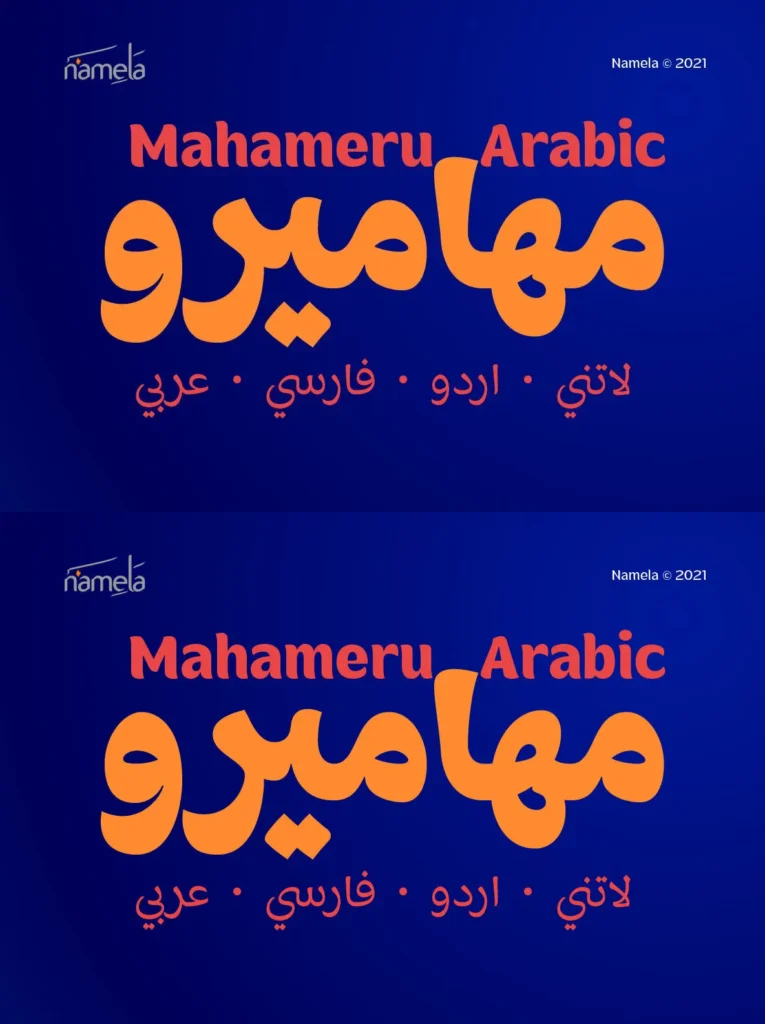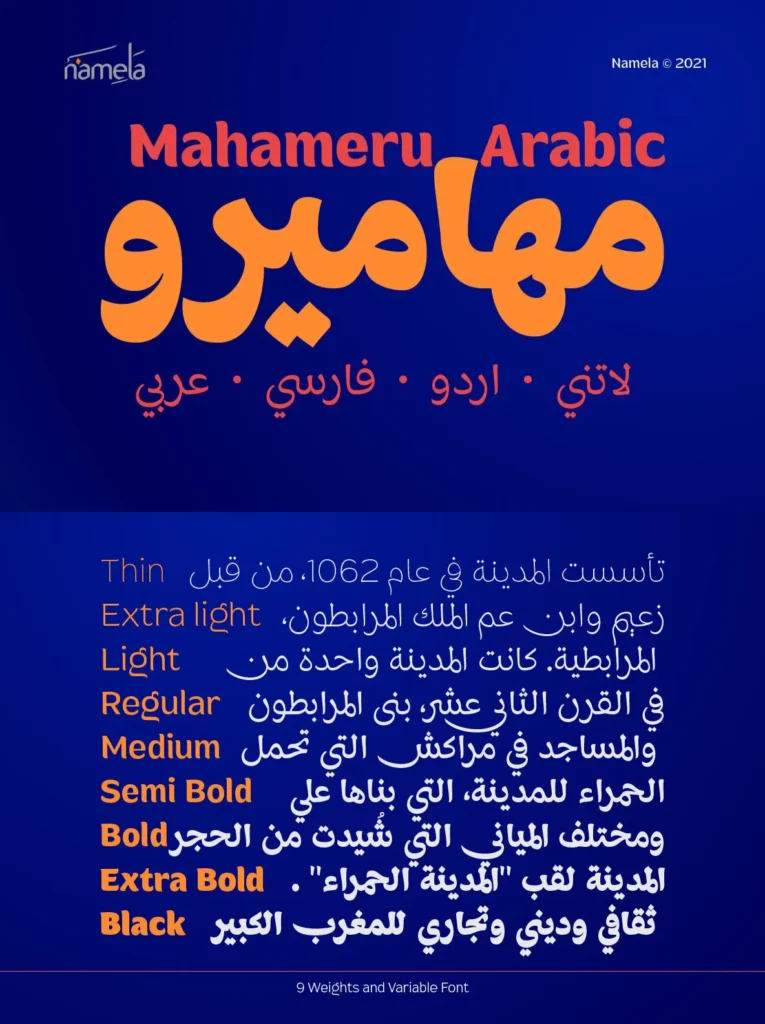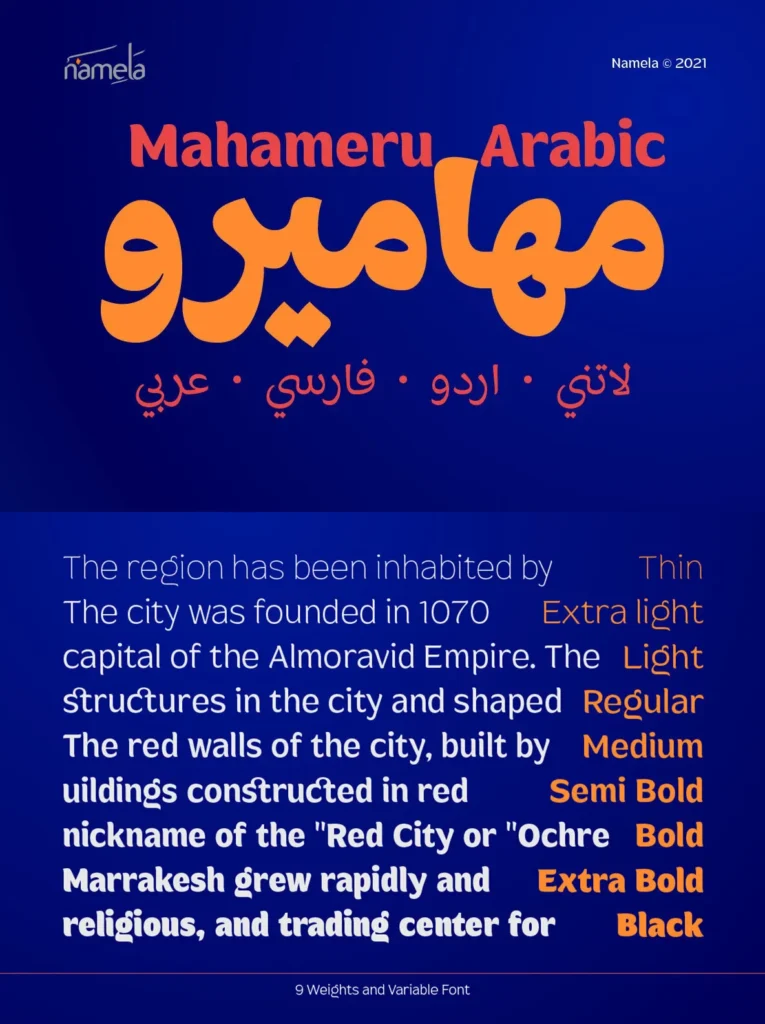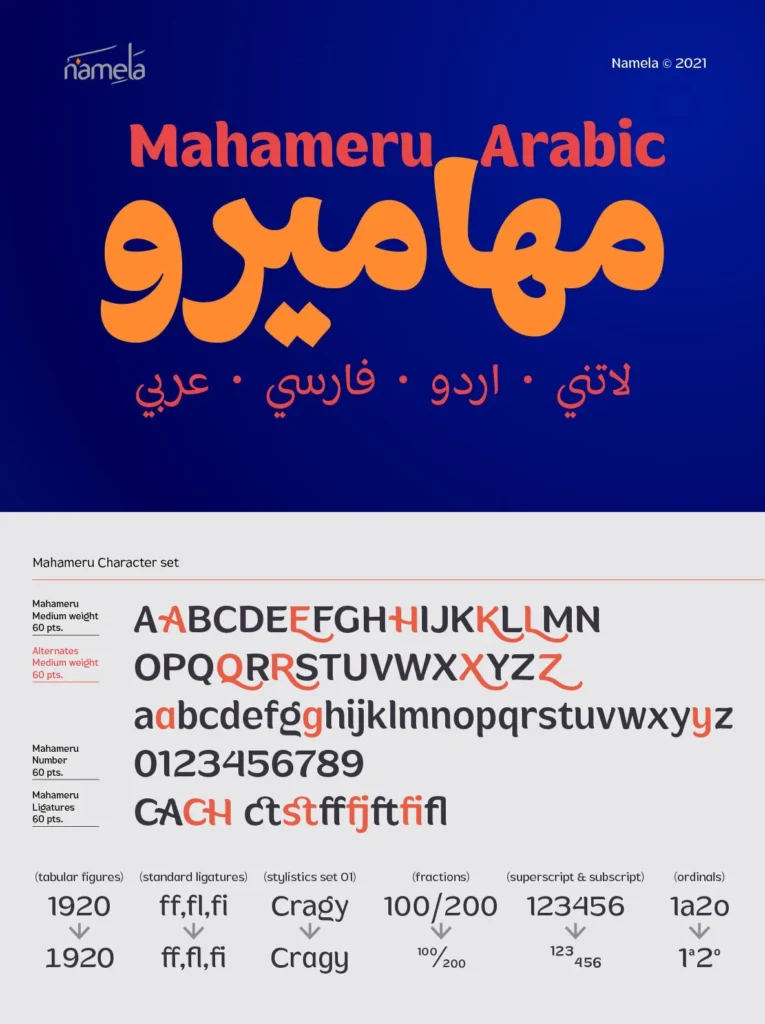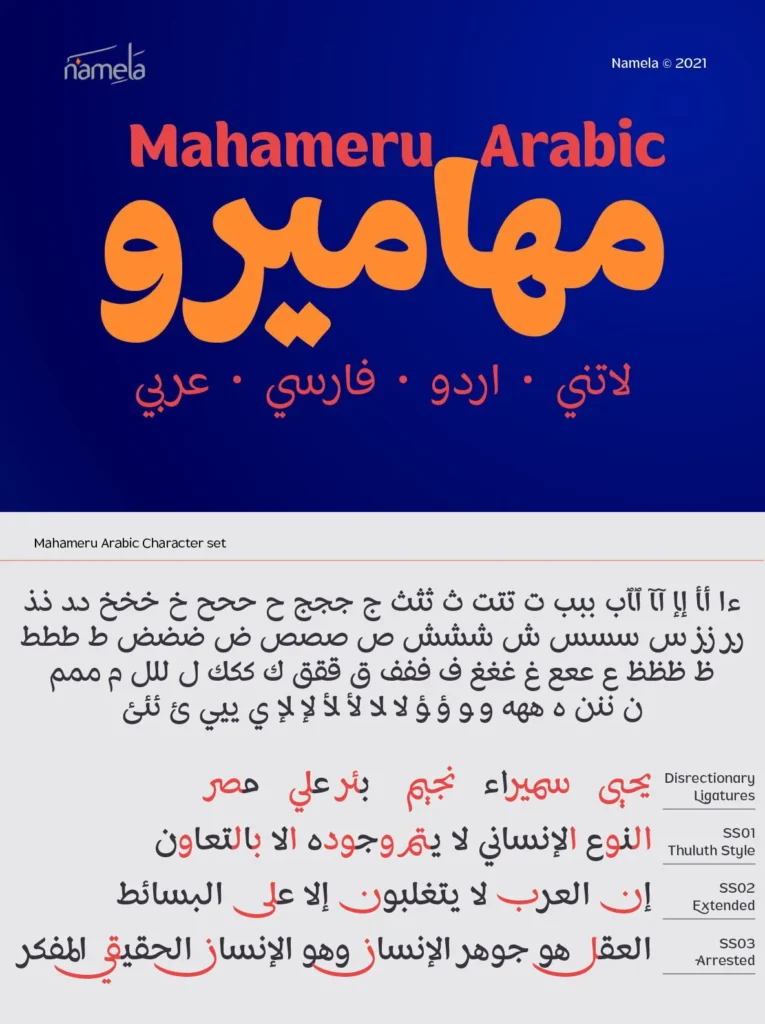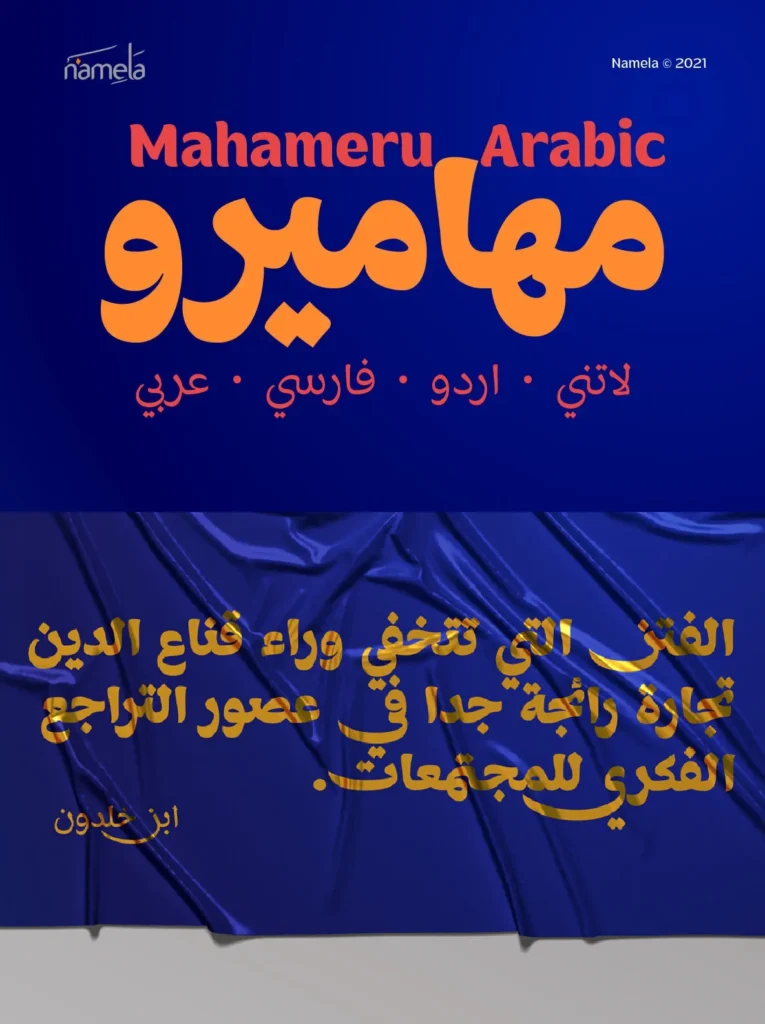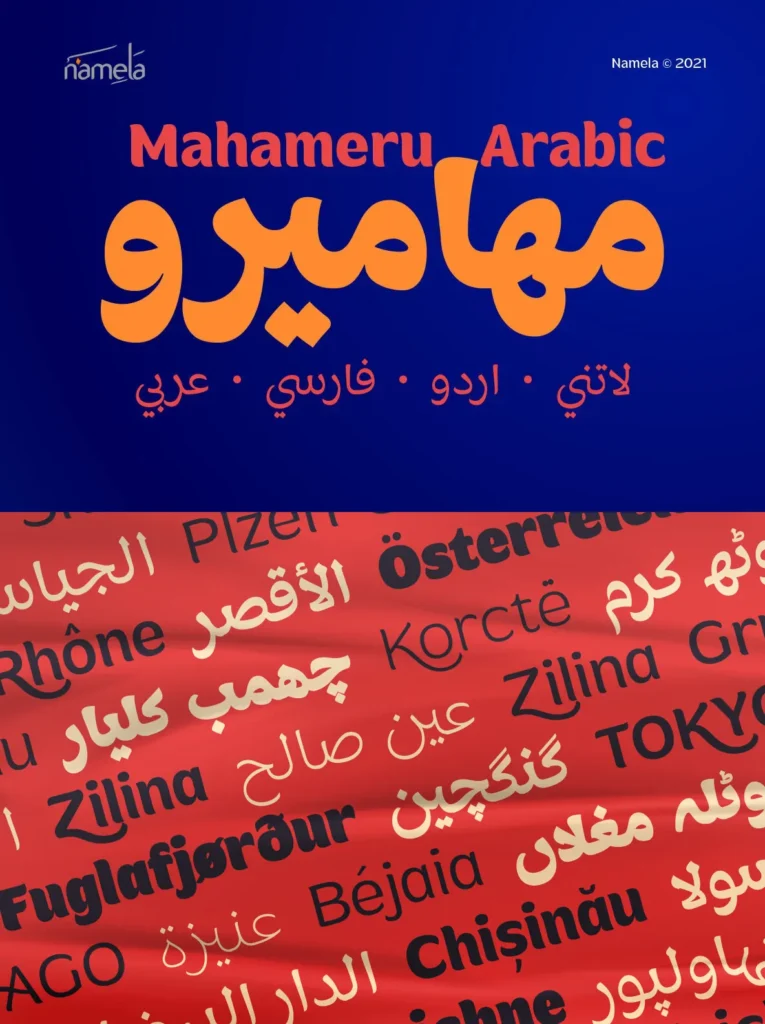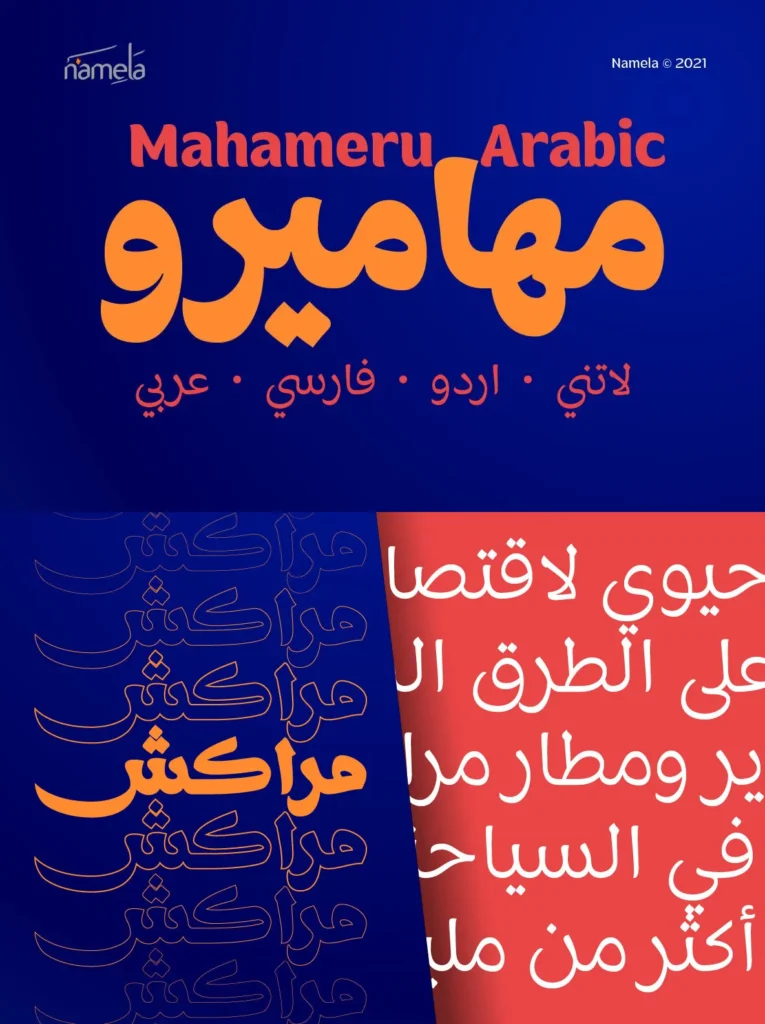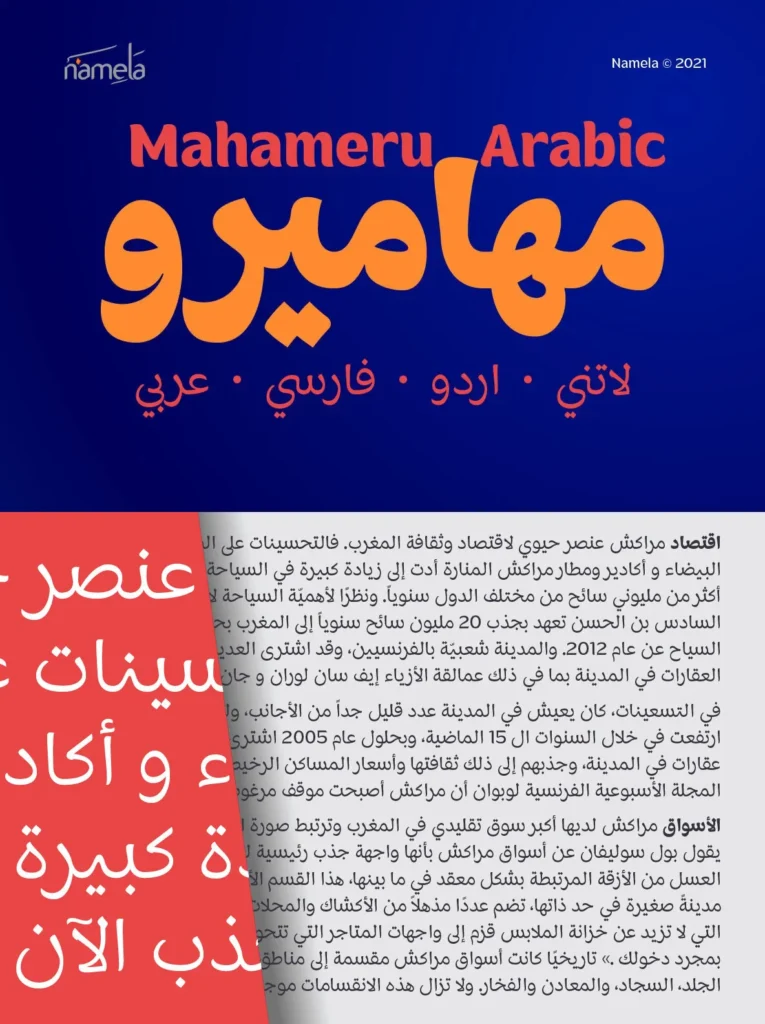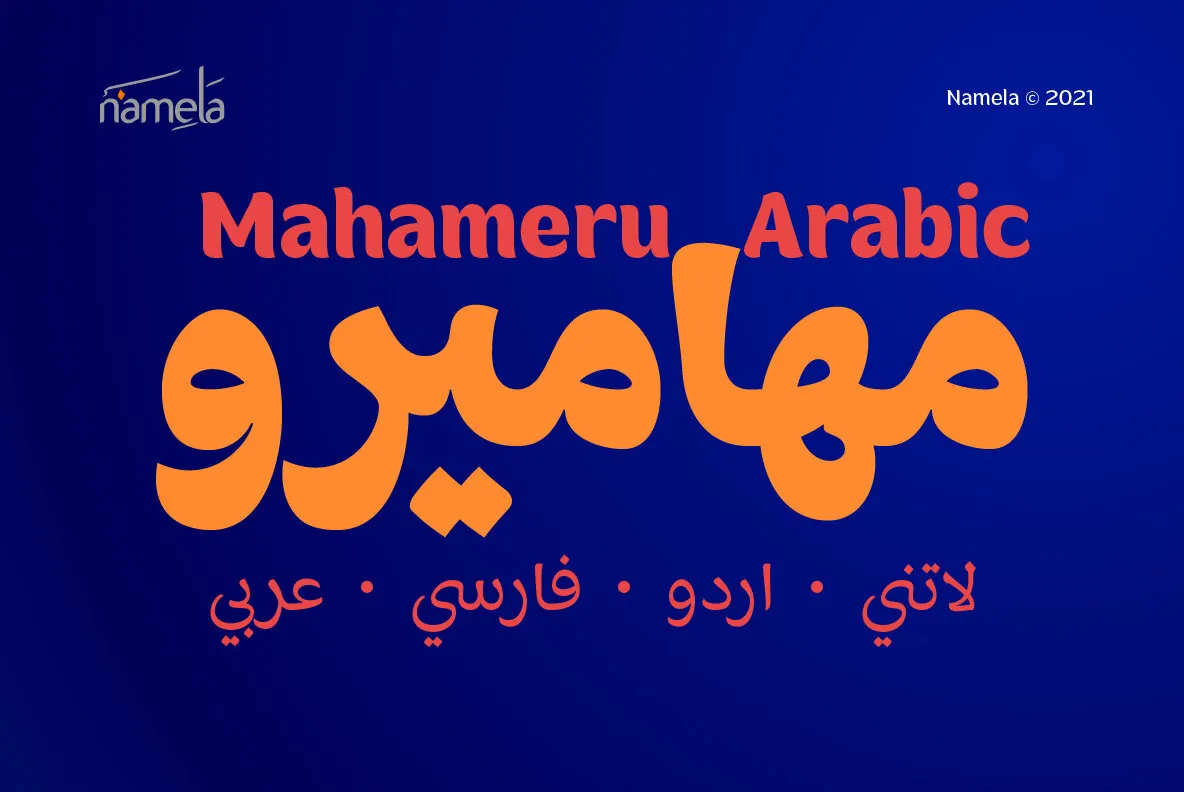
Mahameru is the name of the peak of Mount Semeru, mean “The Great Mountain” in Sanskrit.
This font gives a firm and soft character, with the terminal point on straight and curved strokes. In Arabic version we adding Arabic Characters for Arabic, Urdu, and Farsi.
The family has 9 weights ranging from Thin to Black and offers a lot of features flexibility that will help you find the best typographic color for your project.